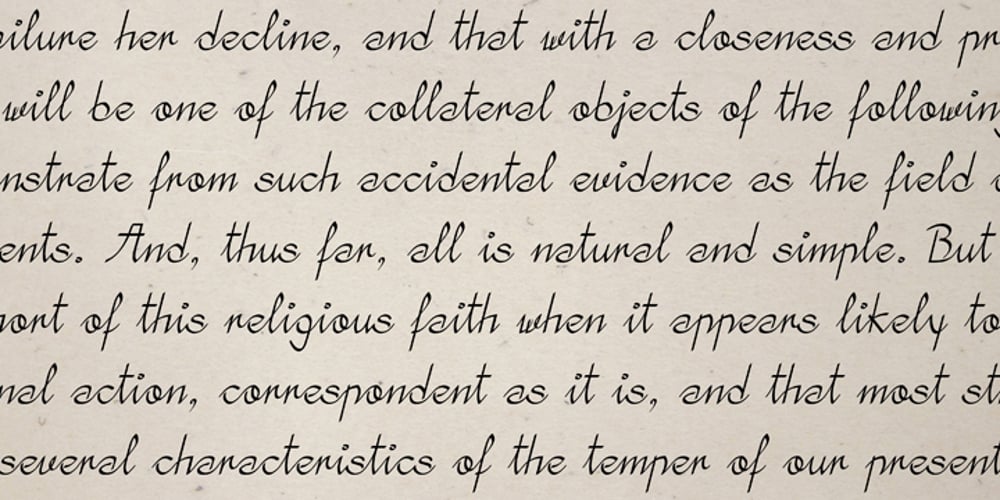
Sommerwerk Ink
Sommerwerk Ink font
Sommerwerk Ink Font Family was designed by Andreas Sommerwerk and published by Sommerwerk. Sommerwerk Ink contains 1 styles and family package options. This font is inspired by typography found on old German shop windows. It is a script font, but instead of imitating human handwriting and the gestures connected to it, the goal was to come up with a new writing flow and stroke order. As opposed to handwriting Latin script letters, which normally means drawing each character and then connecting it to the next one, the strokes of this font run across multiple glyphs. Intentionally, the design aims to achieve a flowing transition between each glyph without making use of contextual alternates, taking the limitations of classic machine lettering as a challenge.